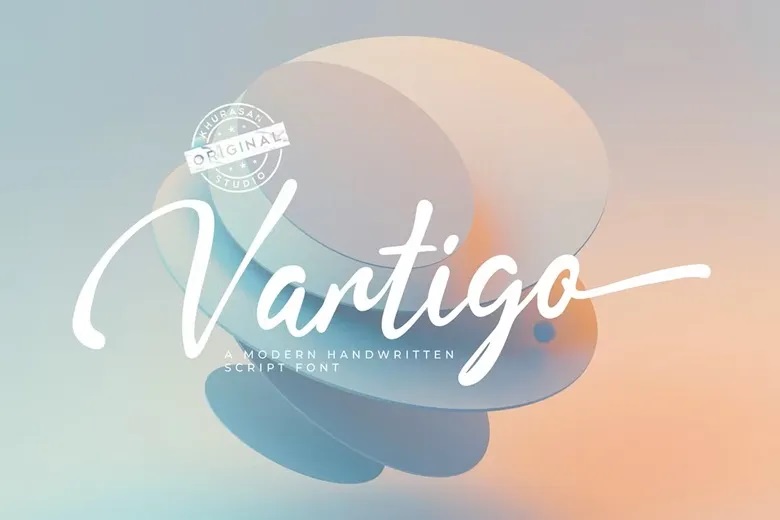
Vartigo Font
Vartigo is a script handwriting typeface with a natural brush look, made to recreate the beauty of a real hand-lettering. Each stroke is alive – fluid, expressive, personality-filled. It provides a natural handwriting that makes your designs feel homey, fashionable, and high quality.
Vartigo is ideal in logos, branding, product wrapping, quotations, social media, wedding designing, and creative work (test projects), and it creates a personal and artistic touch that immediately stands out. It has a fluid connection and sensation of movement and emotion in the brush texture that makes your text human and memorable.
Vartigo Handwritten Script Font